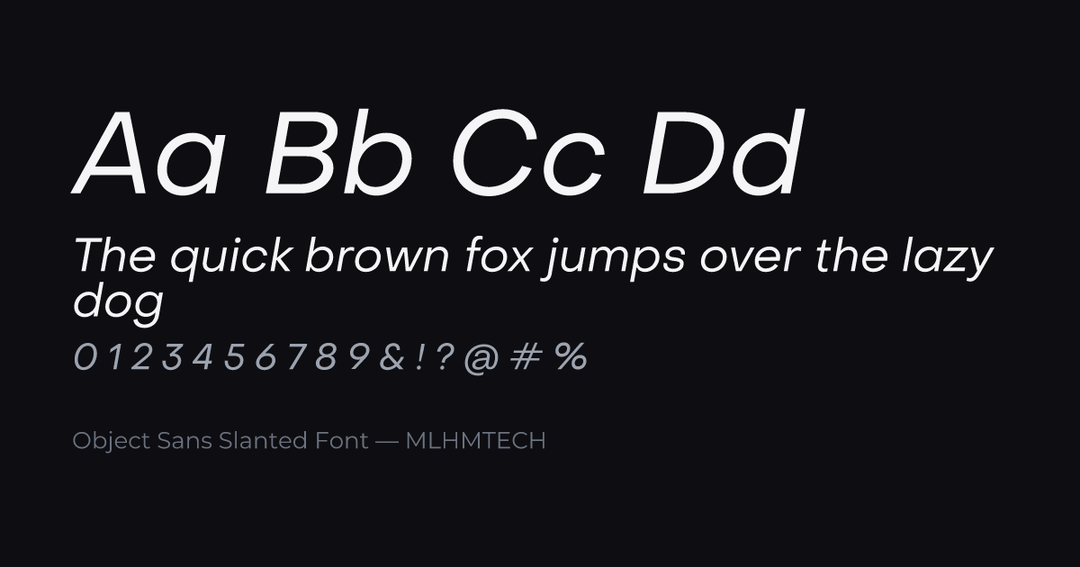
Object Sans Slanted Font
Object Sans Slanted is a contemporary geometric sans-serif font with a subtle slant, adding movement and personality to your designs. Ideal for headlines, logos, and branding projects.
Object Sans Slanted is a versatile typeface that combines the clean lines of a geometric sans-serif with a dynamic slant. Its modern aesthetic makes it perfect for a wide range of creative projects, from branding and logo design to editorial layouts and digital interfaces.
The font's slanted style adds a sense of motion and energy, making it stand out in headlines and promotional materials. Despite its distinctive character, it remains highly legible, ensuring readability across various sizes and mediums.